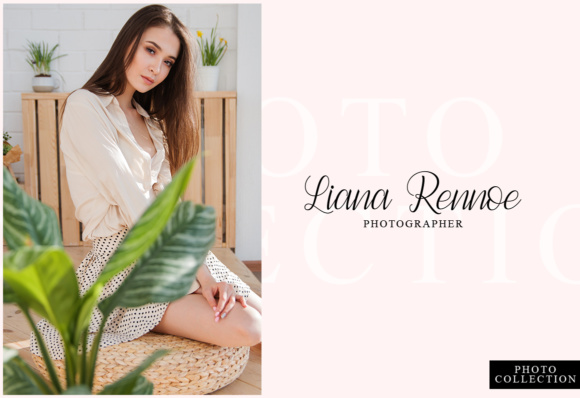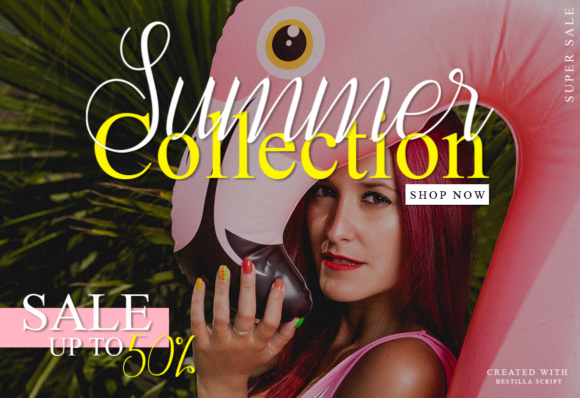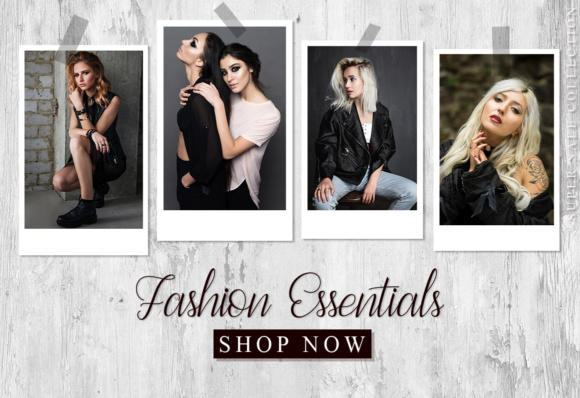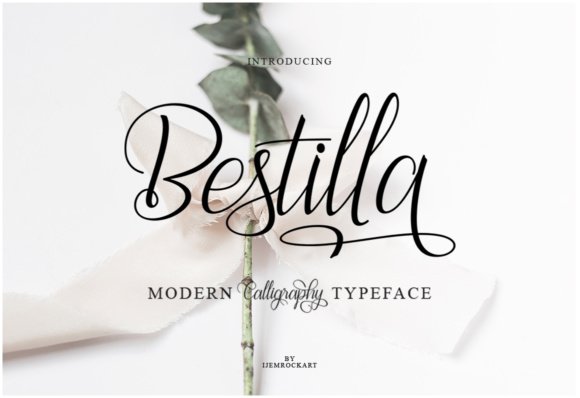
Introduction to Bestilla Font
Bestilla is a gorgeous, swashy font with decorative characters and tons of beauty.
This is a great font with over 1,300+ glyphs, so you can create the most unique looking calligraphy imaginable .
Why Choose Bestilla Font?
Bestilla Font offers exceptional quality and versatility, making it a valuable addition to your design toolkit. Whether you’re creating for personal projects or commercial use, Bestilla Font delivers professional results.